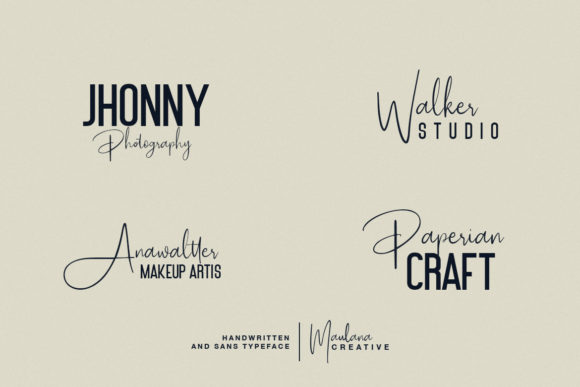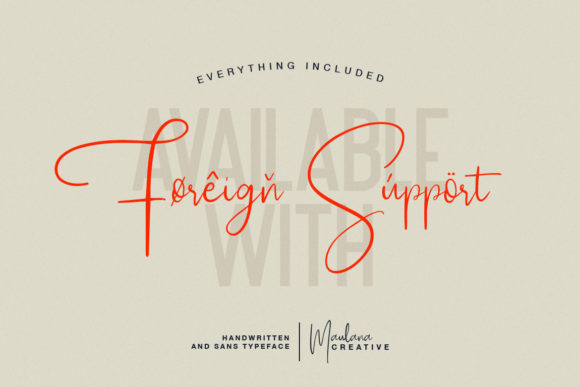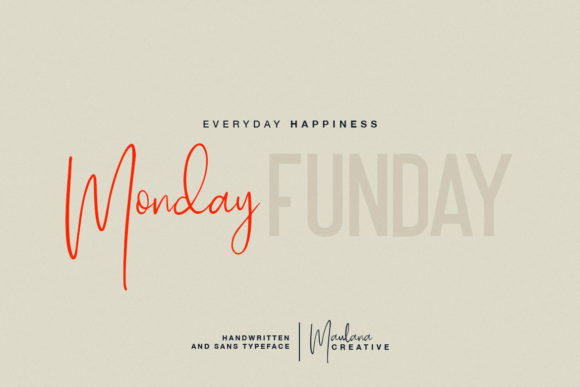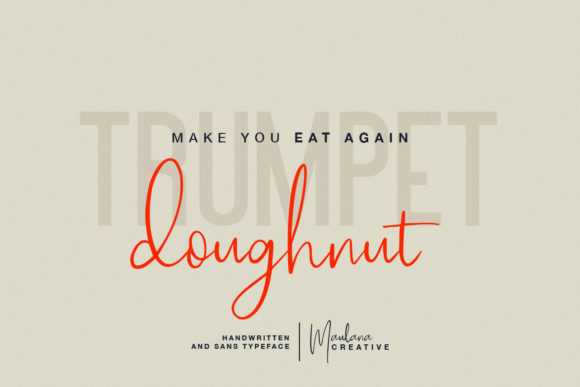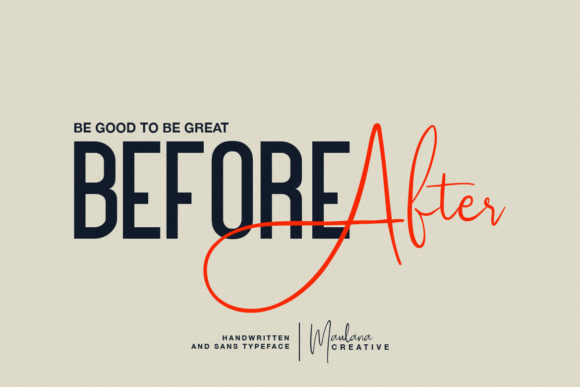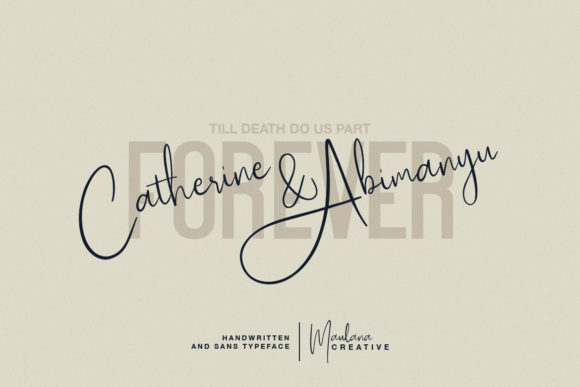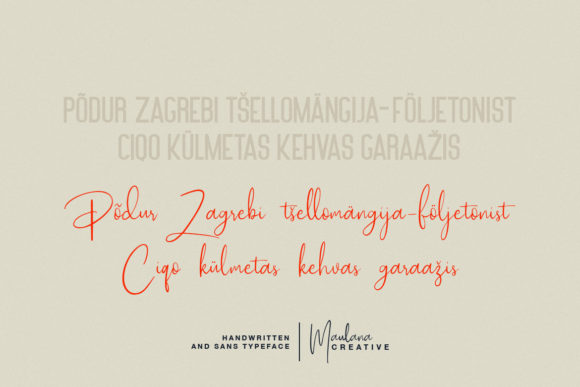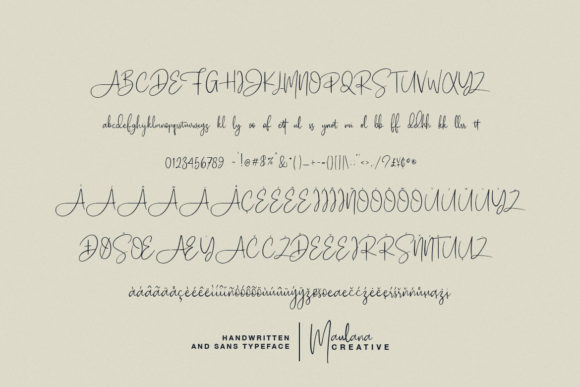
Poliesster Font
About Poliesster Font
With its bold lettering and rich alternates, Poliesster is a gorgeous font duo, perfectly suited to elevate any signature, stationery, logo, typography quotes, magazine or book cover, website header, clothing, branding, packaging design and much more!